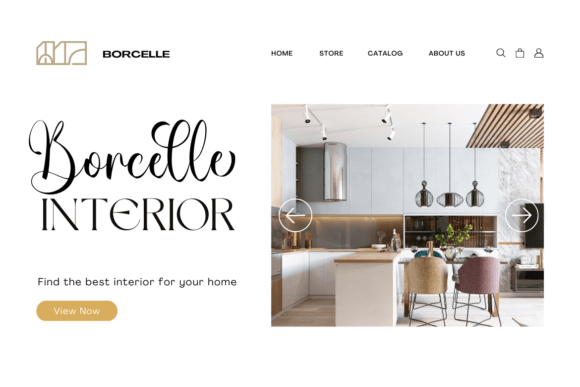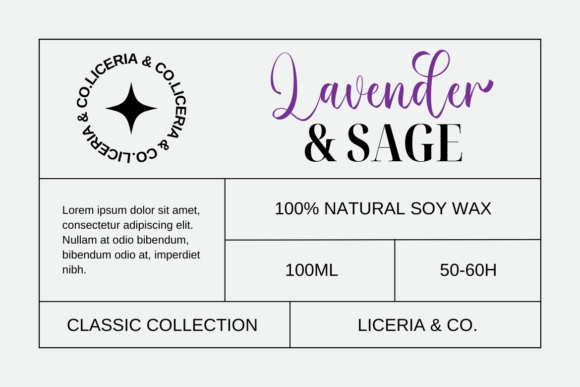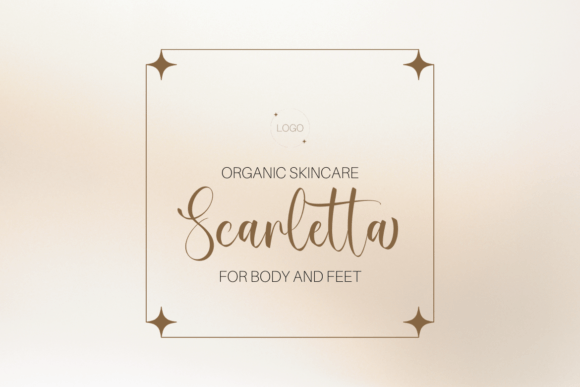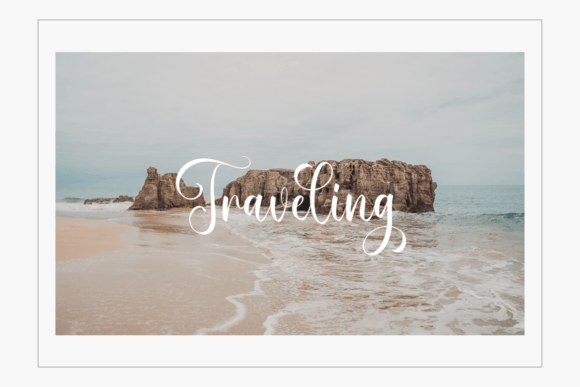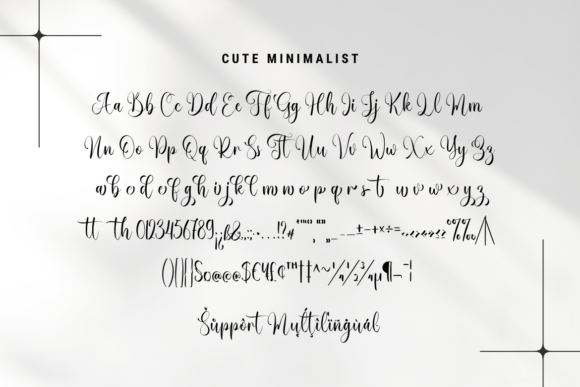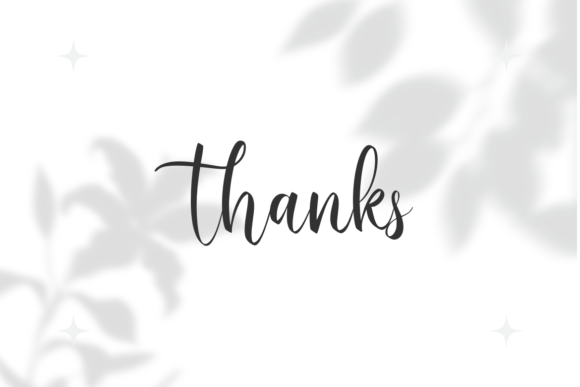
The Perfect Font for a Whimsical Touch
Have you ever stumbled upon a font that makes your design dreams come true? For me, it was that magical moment when I discovered the Cute Minimalist Font. I was working on a Valentine’s Day project, and I wanted to infuse it with a romantic, handwritten feel. As I browsed through the font options, I landed on this lovely, stylish, and detailed Cute Minimalist Font. It was love at first sight!
This beautiful font is not just a pretty face; it’s a valuable tool for designers. With its PUA encoded glyphs and alternates, you can add a unique touch to your designs, from wedding invitations to photography and logos. Whether you’re a seasoned pro or a beginner, the Cute Minimalist Font will guarantee a romantic touch to each of your creations.
Cute Minimalist Font Key Features
- Unique Characteristics: Custom-designed for a minimalist aesthetic, featuring clean lines, simple shapes, and a touch of whimsy
Cute Minimalist Font Review
I recently had the chance to work with the Cute Minimalist Font, and here’s my honest take on it.
The font’s clean and simple design is perfect for minimalistic branding and web design projects. It’s also incredibly versatile, making it suitable for a wide range of applications, from logos to body text.
- Legible at various font sizes and resolutions
- Easy to read in both print and digital formats
- Pairs well with a variety of color schemes and design styles
While the font is overall a great choice, there are a few areas where it falls short:
- Lacks bold and italic styles, which may limit its use in certain situations
- Not as effective for headings or titles, where a more dramatic font is often preferred
- May not be suitable for projects requiring a high level of emotional expression or creativity
Overall, I think the Cute Minimalist Font is a solid choice for designers looking for a clean and simple font. While it may not be the best fit for every project, it’s a great addition to any font library.
Use Cute Minimalist Font for:
- Designing social media posts and graphics
- Creating flyers and brochures
- Designing logos and branding materials
For best results, pair Cute Minimalist Font with simple, clean graphics and minimal color schemes.